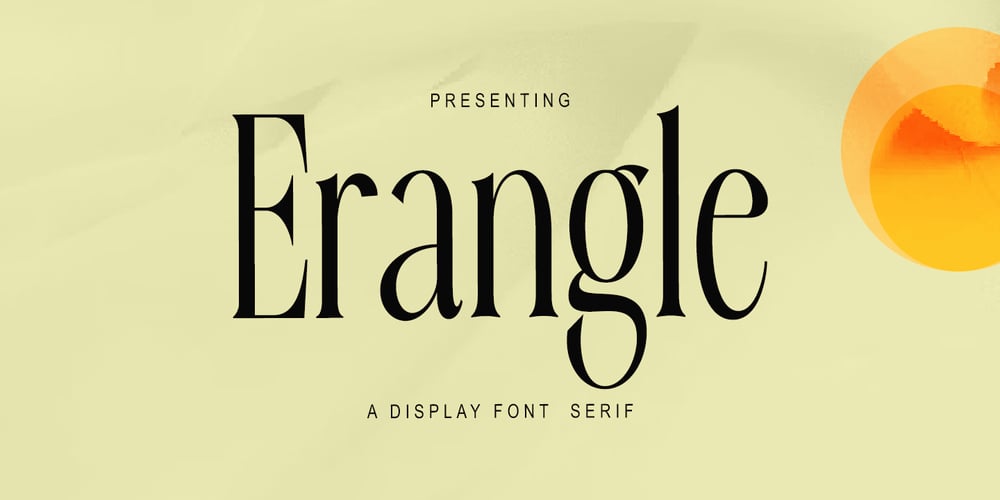
Erangle
Erangle font
Erangle Font Family was designed by khaidir and published by Gatype. Erangle contains 1 styles and family package options. Erangle is an elegant serif typeface inspired by a vintage type specimen I found recently at an art fair. Thin to thick contrasting lines and elegant curves make Beginta the perfect font for this type of logo and display purposes.Hope you enjoy itFeel free to contact you with any questions or concerns you may have and I will get back to you as soon as I can.